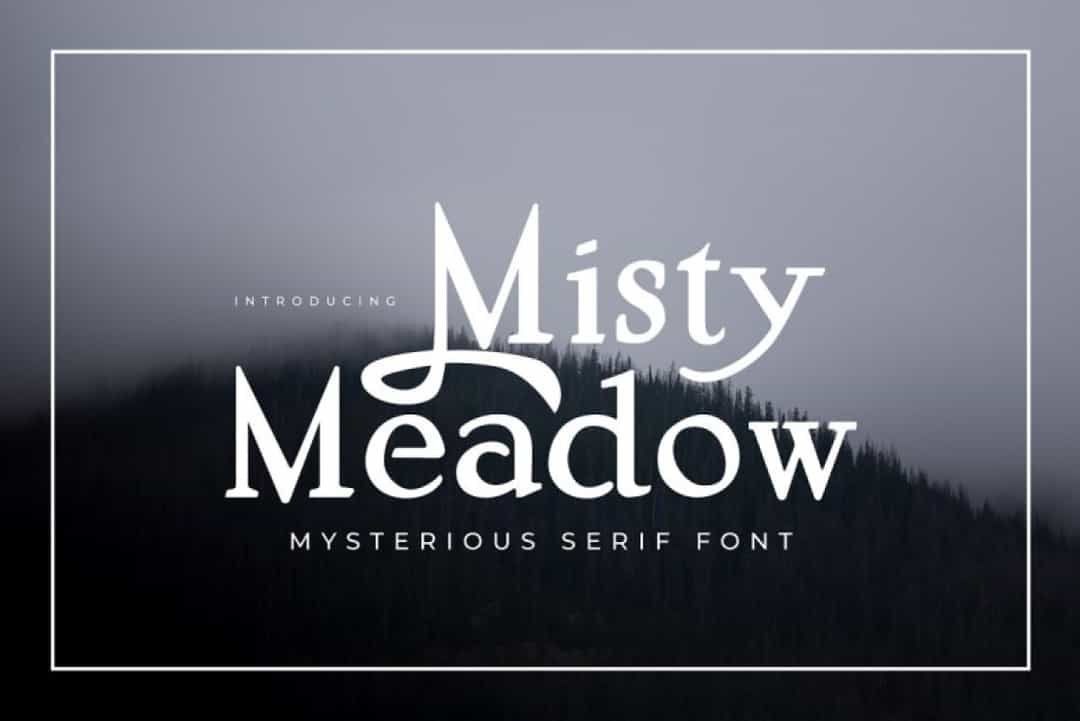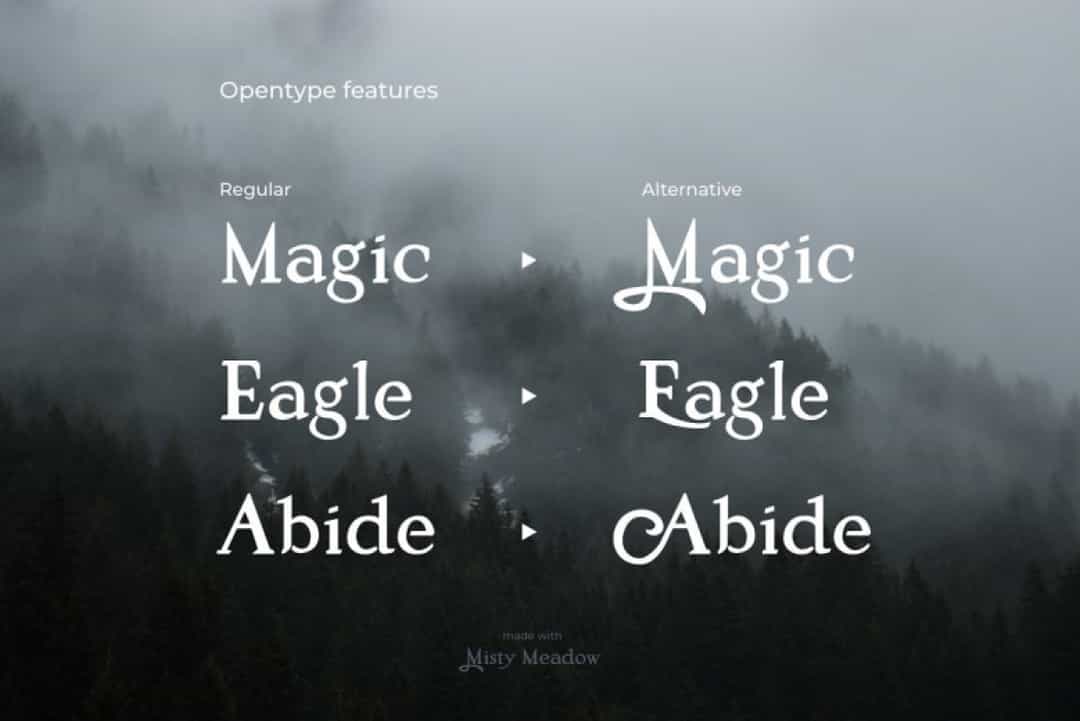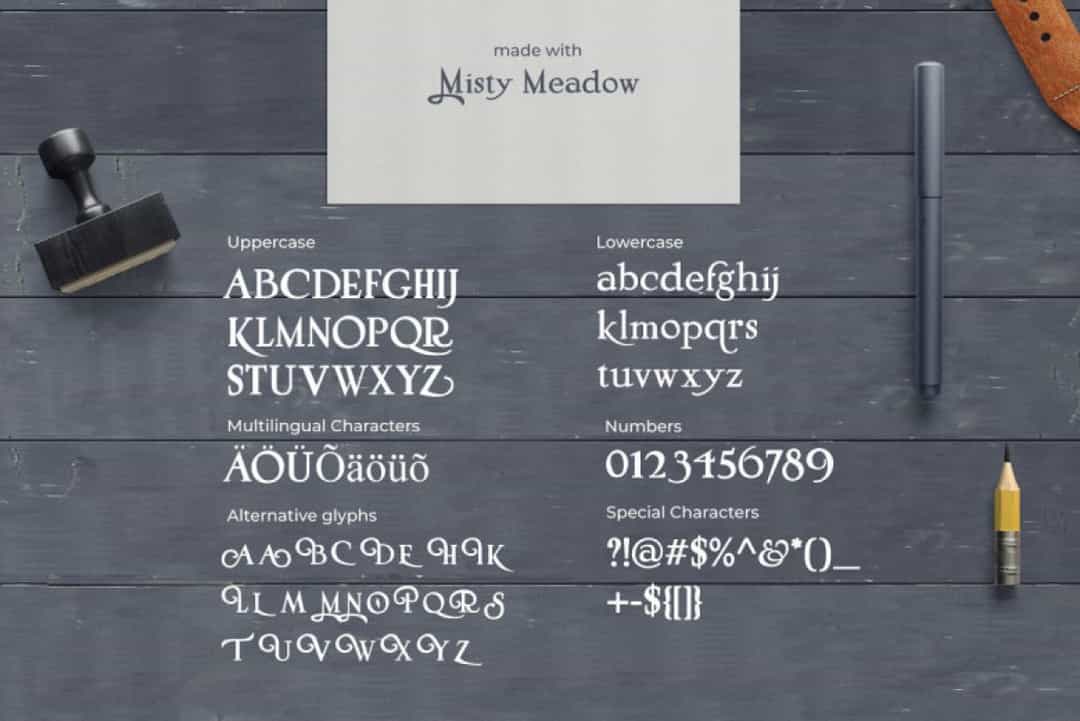
Misty Meadow– A classic Serif font with an enigmatic appearance, suitable for creating vintage typography and signage banners, T-shirt logos and other creative designs.